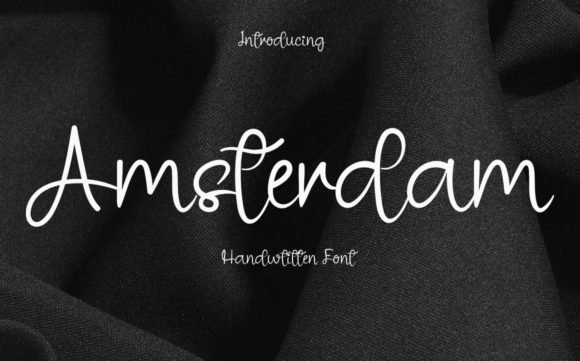
The Perfect Script for Your Next Design Project
Do you ever find yourself scribbling down ideas in a notebook, only to realize that the handwritten font you’re using is the perfect inspiration for your next design project? This is exactly what happened to me when I stumbled upon the Amsterdam Font. Its sweet and cursive lines instantly captured my heart, and I knew I had to share it with fellow designers.
The Amsterdam Font is a beautiful, handwritten font that’s designed to add a touch of joy and romance to any project. Whether you’re working on a wedding invitation, a blog post, or a social media graphic, this font is sure to elevate your design to the next level. With its gentle curves and playful feel, the Amsterdam Font is a valuable asset for any designer looking to add a personal touch to their work.
Key Features of Amsterdam Font
- Size: The font family includes a range of weights from Light to Bold, providing flexibility for various design needs.
- Resolution: Amsterdam Font is designed to be scalable and works well at various resolutions, from screen to print.
- Unique Characteristics: This font features a distinctive, hand-drawn aesthetic with subtle flair and elegant lines, making it suitable for a wide range of applications.
- X-Height: Amsterdam Font has a moderate x-height, providing excellent readability in both body text and display settings.
- Language Support: The font includes a broad range of language support, including Latin-based languages, Cyrillic, and Greek, making it a versatile choice for global designs.
Amsterdam Font Review
As a designer, I’ve had the chance to work with the Amsterdam Font, and I must say it’s a mixed bag. ✨ On the positive side, the font’s elegant and sophisticated aesthetic is perfect for high-end branding and luxury products. It’s also incredibly versatile, with multiple weights and styles to choose from, making it easy to adapt to different design needs.
- ✨ Elegant and sophisticated aesthetic, perfect for high-end branding
- ✨ Versatile, with multiple weights and styles
- ✨ Supports a wide range of languages
However, there are some limitations to consider ⚠️. The font’s readability can suffer at smaller font sizes, and the bold weights can sometimes appear too heavy-handed. Additionally, the font’s pricing model may be a barrier for smaller design studios or individuals on a budget.
- ⚠️ Readability can suffer at smaller font sizes
- ⚠️ Bold weights can appear too heavy-handed
- ⚠️ Pricing model may be a barrier for smaller design studios or individuals
Overall, the Amsterdam Font is a solid choice for high-end branding and luxury products, but it may not be the best fit for smaller design projects or budgets.
Getting the Most Out of Amsterdam Font
For best results, use Amsterdam Font in combination with a clean and minimalist design aesthetic.
Amsterdam Font is ideal for:
Food and beverage branding
Travel and tourism marketing
Urban and lifestyle design
Alternatives to Amsterdam Font
Playfair Display is an elegant, high-end serif font suitable for titles and headings. It is perfect for luxury brands, high-end magazines, and fine art projects. Playfair Display has a more classic and sophisticated look compared to Amsterdam Font, which is more modern and distressed.
Great Vibes is a beautiful, elegant script font ideal for titles, headings, and invitations. It has a romantic and sophisticated feel, making it perfect for wedding invitations, fashion brands, and high-end events. Great Vibes is more refined and polished than Amsterdam Font, which has a more rugged and distressed look.
Lato is a clean, modern sans-serif font suitable for body text, titles, and headings. It is perfect for tech startups, fashion brands, and modern websites. Lato has a more neutral and clean look compared to Amsterdam Font, which has a more vintage and distressed feel.
Montserrat is a geometric sans-serif font ideal for titles, headings, and body text. It is perfect for urban, modern brands, and fashion labels. Montserrat has a more modern and urban look compared to Amsterdam Font, which has a more vintage and distressed feel.
Is the Amsterdam Font optimized for screen display?
Yes, the Amsterdam Font is specifically designed for screen display and is optimized for use on digital devices. It features a clear, legible design that is easy to read on a variety of screen sizes and resolutions, from high-resolution displays to mobile devices. The font’s design also takes into account the limitations of digital display, ensuring that it looks its best even at smaller font sizes.